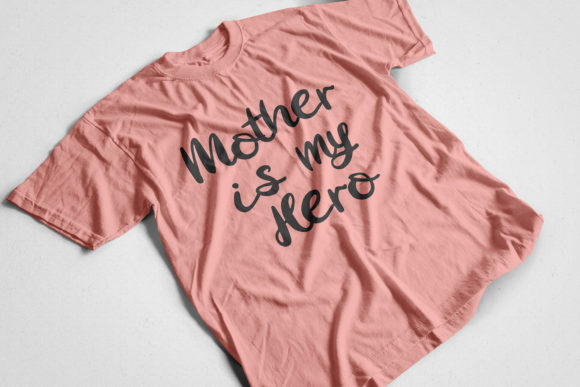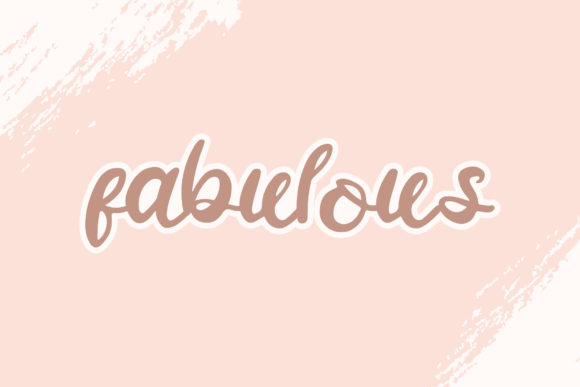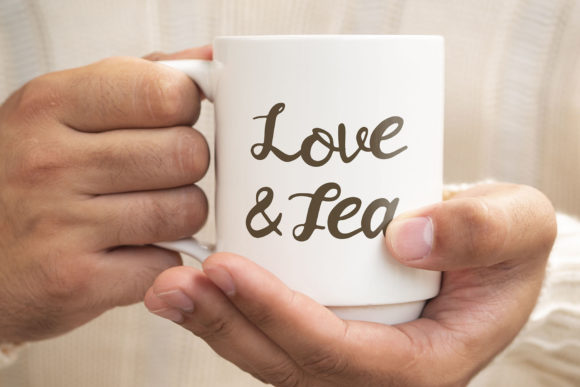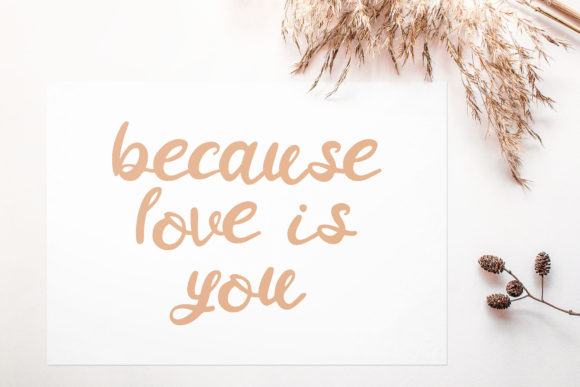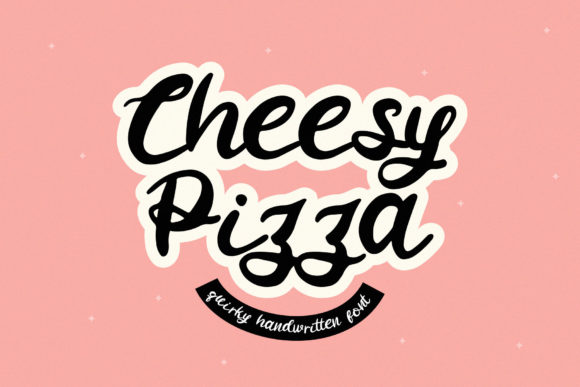
Introducing Cheesy Pizza Font: The Ultimate Handwritten Delight
Are you on the hunt for a font that’s as playful as it is versatile? Look no further than Cheesy Pizza, a cute and fun handwritten font that’s sure to add a dash of personality to your designs. A little bit quirky, this font looks incredibly adept on a wide variety of contexts, making it the perfect addition to your typography toolkit.
The Charm of Cheesy Pizza Font
Cheesy Pizza Font is a handcrafted typeface that’s been carefully designed to bring a smile to your face. Its playful, cursive strokes and irregular letterforms give it a delightfully quirky feel that’s perfect for designs that need a bit of whimsy. Whether you’re working on a project for a children’s brand, a crafty DIY label, or a social media graphic, Cheesy Pizza Font is sure to bring a touch of fun and personality to your work.
What Makes Cheesy Pizza Font So Special?
So, what sets Cheesy Pizza Font apart from other handwritten fonts on the market? Here are just a few reasons why this font is a standout:
- Unique Character: Cheesy Pizza Font has a one-of-a-kind personality that’s hard to find in other fonts. Its quirky, hand-drawn feel makes it perfect for designs that need a bit of edge.
- Versatility: Despite its playful nature, Cheesy Pizza Font is incredibly versatile. It can be used in a wide range of contexts, from titles and headings to body text and captions.
- Readability: While Cheesy Pizza Font is certainly a decorative font, it’s also surprisingly readable. This makes it perfect for designs that need a bit of flair without sacrificing legibility.
Using Cheesy Pizza Font in Your Designs
So, how can you use Cheesy Pizza Font in your designs? Here are a few ideas to get you started:
- Crafting and DIY Projects: Cheesy Pizza Font is a perfect fit for crafting and DIY projects, such as labels, signs, and cards.
- Children’s Brands: The playful, whimsical nature of Cheesy Pizza Font makes it a great choice for children’s brands, including logos, packaging, and marketing materials.
- Social Media Graphics: Add a touch of personality to your social media graphics with Cheesy Pizza Font. It’s perfect for creating eye-catching titles, captions, and quotes.
Tips for Getting the Most Out of Cheesy Pizza Font
Here are a few tips for getting the most out of Cheesy Pizza Font:
- Experiment with Sizes: Cheesy Pizza Font looks great in a variety of sizes, from large titles to smaller body text. Experiment with different sizes to find the perfect fit for your design.
- Play with Colors: The playful nature of Cheesy Pizza Font makes it a great fit for bright, bold colors. Don’t be afraid to get creative with your color palette!
- Mix and Match: Cheesy Pizza Font pairs well with a wide range of other fonts. Try mixing and matching it with other typefaces to create a unique look.
Cheesy Pizza Font is a truly unique and versatile typeface that’s sure to add a dash of personality to your designs. Its playful, handwritten feel makes it perfect for a wide range of contexts, from crafting and DIY projects to children’s brands and social media graphics. With its quirky character, versatility, and readability, Cheesy Pizza Font is a must-have for any designer or crafter looking to add a bit of fun and whimsy to their work.